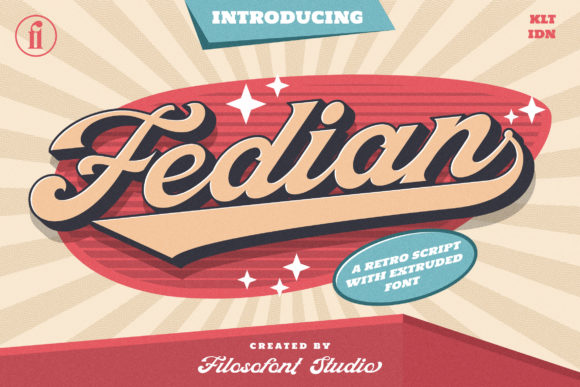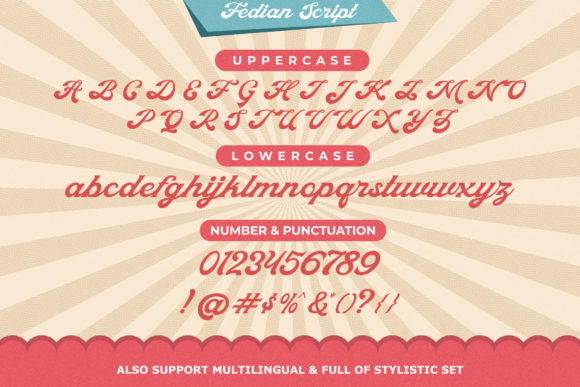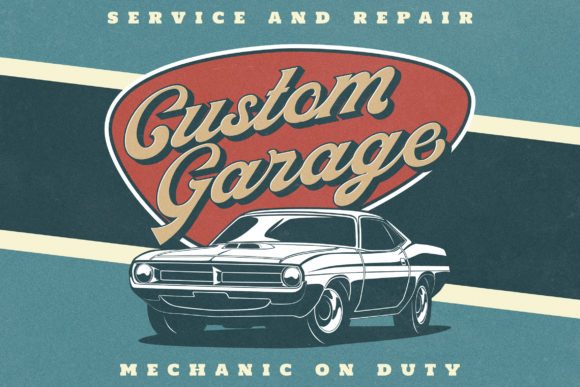
About Fedian Font
Fedian is a gorgeous and bold handwritten font, crafted to give your headlines and logotype projects a stylish and retro touch. This font reads as strong, confident, and dynamic and can add tons of nostalgic character to your designs. Fedian is PUA encoded which means you can access all of the glyphs and swashes with ease!